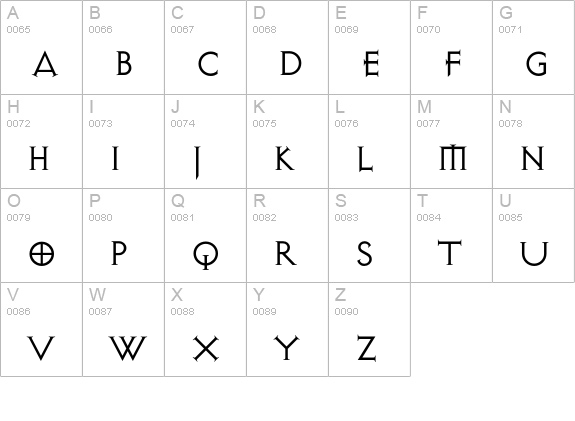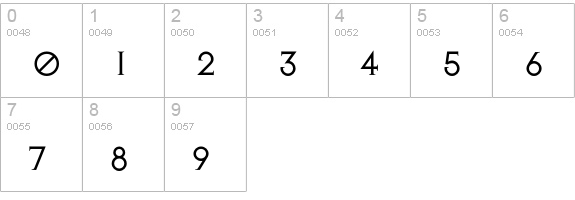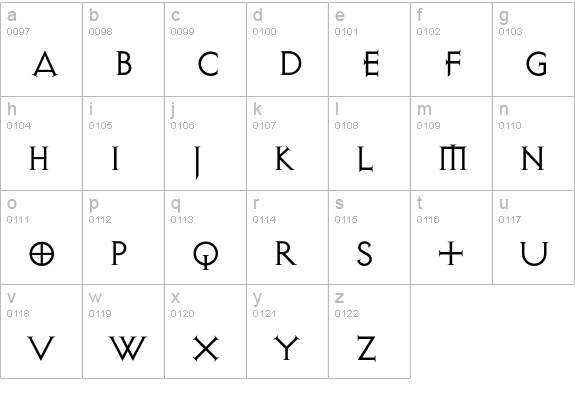
ExocetLight Font Details
ExocetLight font is a sleek and modern typeface that exudes elegance and sophistication. With its clean lines and contemporary aesthetic, this font is perfect for a wide range of design projects, from branding to editorial design. The ExocetLight font strikes the perfect balance between professionalism and creativity, making it a versatile choice for both print and digital applications. The best part? ExocetLight font is available for free download at FontsMarket.com. Whether you're a graphic designer, a blogger, or a small business owner looking to elevate your branding, this font is a fantastic addition to your toolkit. Its legibility and modern appeal make it a go-to choice for those who appreciate high-quality typography without breaking the bank. Don't miss out on the opportunity to enhance your projects with the timeless charm of ExocetLight font. Download it for free today at FontsMarket.com and take your designs to the next level.